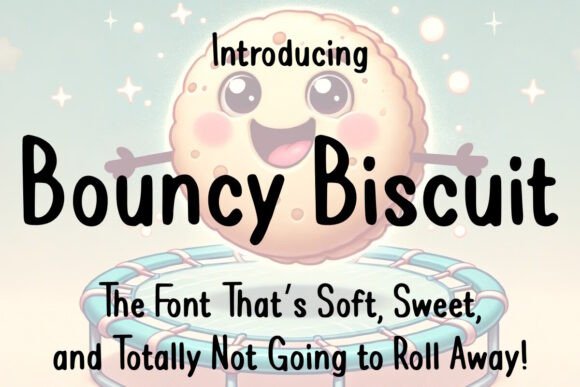
The Bouncy Biscuit Font: A Friendly, Hand-Drawn Delight for Your Designs
Have you ever been working on a project, pouring your heart and soul into it, only to get stuck on one tiny detail – the font? I certainly have! It was a sunny Saturday morning when I found myself scrolling through font after font, searching for that perfect, friendly vibe for a children’s book project. That’s when I stumbled upon the Bouncy Biscuit font. With its soft, rounded edges and relaxed personality, it instantly captured my attention and stole my heart. ✨
An Honest Review of Bouncy Biscuit
• ✨ The friendly, approachable vibe it brings to any design
• ✅ Smooth strokes and imperfect charm that add a personal touch
• 🎉 Perfect for creating cozy, casual projects that feel inviting
While Bouncy Biscuit is a delightful font, it’s not without its quirks. ⚠️ Keep in mind that, as a hand-drawn font, it might not be the best fit for very formal or corporate projects. Additionally, some users might find the font a tad too casual for their taste.
The Backstory of Bouncy Biscuit
Bouncy Biscuit was created with a little help from AI, much like a biscuit that’s fresh out of the oven – warm and ready for your projects. The designer aimed to craft a font that feels personal, inviting, and perfect for cozy, casual designs. With its smooth strokes and imperfect charm, Bouncy Biscuit is sure to add a touch of warmth to your creations.
Q: Does Bouncy Biscuit support OpenType features?
A: Yes, Bouncy Biscuit supports OpenType features, allowing you to experiment with glyphs, stylistic alternates, and more to add personality to your designs.
Q: Is Bouncy Biscuit suitable for formal projects?
A: Due to its friendly, hand-drawn nature, Bouncy Biscuit might not be the best fit for very formal or corporate projects. However, it shines in casual, cozy designs.